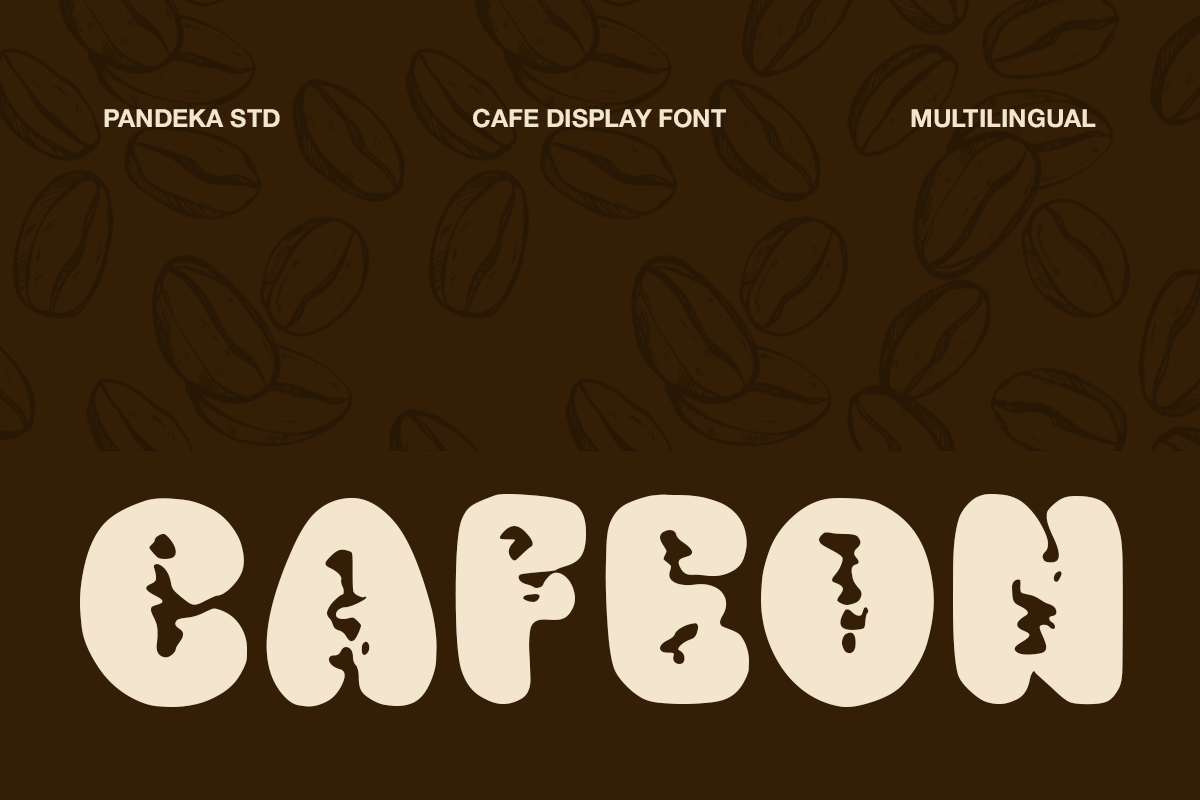
Cafeon - Cafe Display Font
Cafeon is a warm and playful display font inspired by cozy coffee shops, artisan cafés, and handmade menu aesthetics. Its chunky rounded letterforms and soft curves create a friendly, inviting atmosphere that instantly feels approachable and delicious. Cafeon brings a relaxed yet bold personality, making your typography look charming, cheerful, and full of character.
Designed in a single Regular style, Cafeon is easy to use and highly versatile for café branding projects. It works beautifully for coffee shop logos, menu boards, packaging, signage, food labels, posters, social media promotions, and lifestyle branding. Whether you’re creating a modern café identity or a cozy vintage-inspired concept, Cafeon helps your designs feel warm, fun, and memorable.